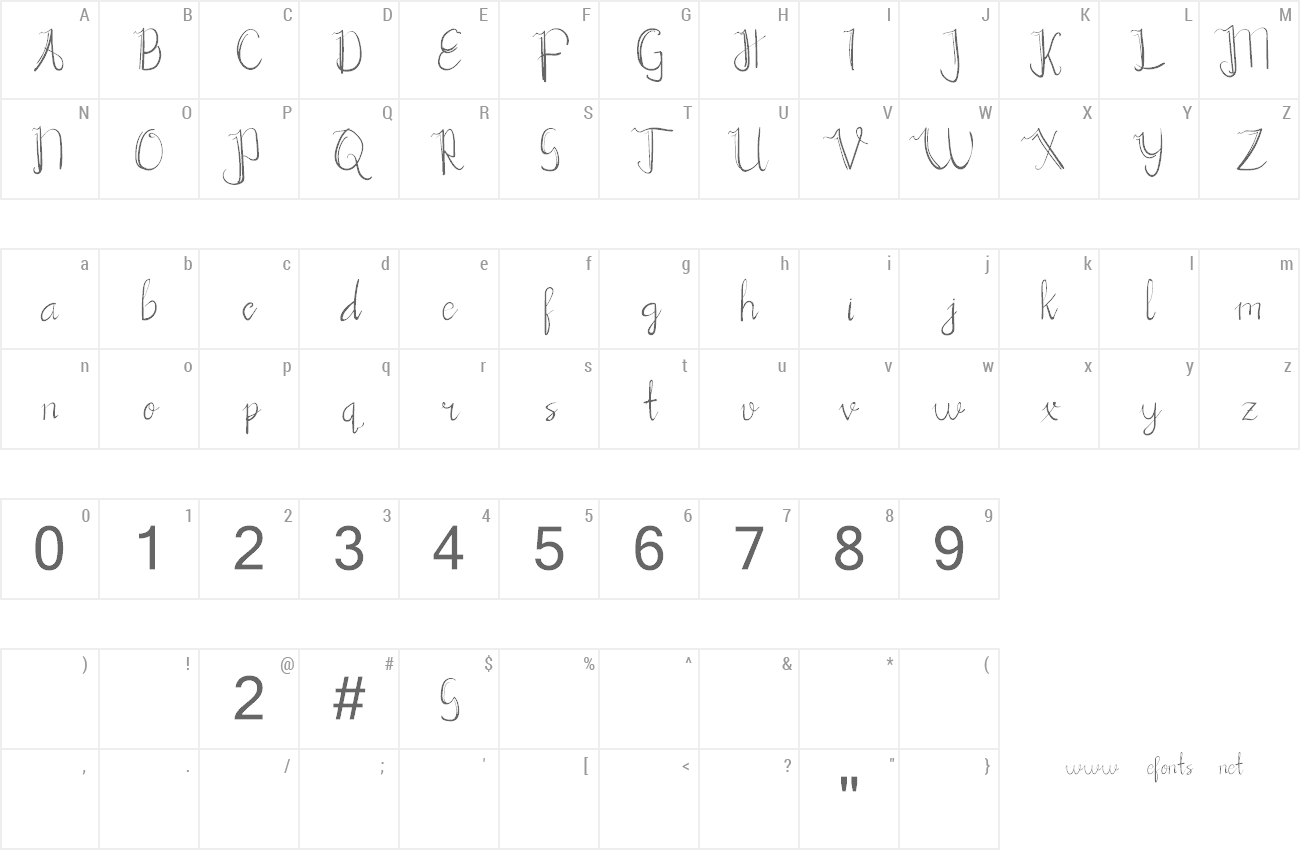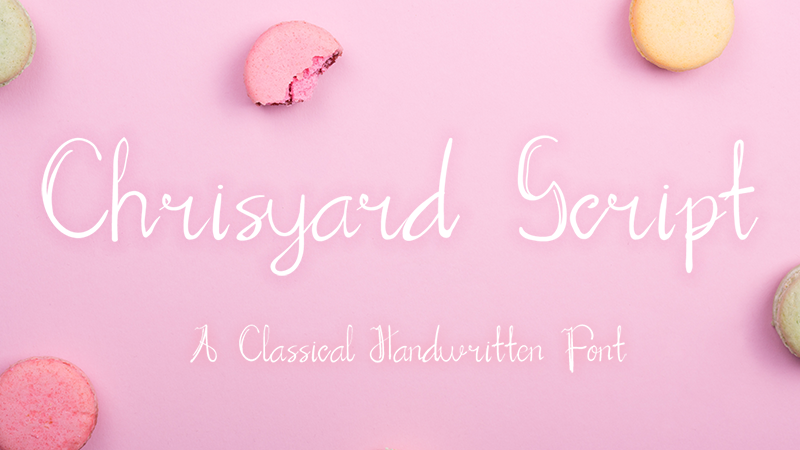
Chrisyard script, This font has a classic style. It's beautiful and elegant. What's Included : Chrisyard TTF Works on PC & Mac Simple installations Accessible in the Adobe Illustrator, Adobe Photoshop, Adobe InDesign, even work on Microsoft Word. NOTE : This DEMO is for PERSONAL USE ONLY!! But any donation are very appreciated. Paypal account for donation : https://www.paypal.me/frachmadi13 If you need a full version, please contact me in fajarrachmadi13@gmail.com |